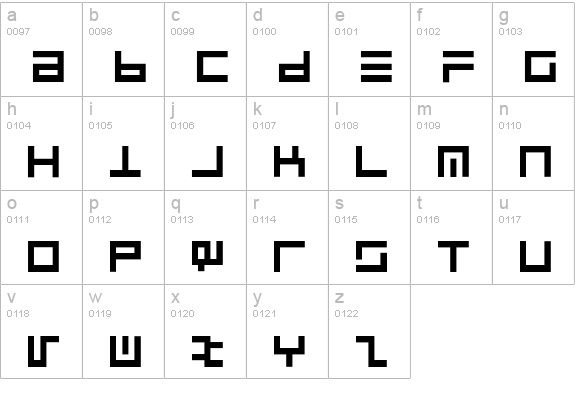
PCLintrulla Font Details
Introducing PCLintrulla font, a versatile and captivating typeface that is perfect for any design project. With its unique blend of contemporary and classic elements, PCLintrulla adds a touch of elegance and sophistication to any text. Featuring clean lines and a balanced structure, this font is easy on the eyes, making it a pleasure to read. Its modern yet timeless design ensures that it stands out from the crowd, making it suitable for a wide range of applications, from branding and advertising to packaging and editorial design. PCLintrulla font offers a wide variety of weights and styles, allowing you to experiment and find the perfect fit for your project. Whether you're looking for a bold and impactful headline or a subtle and refined body text, this font has got you covered. But what sets PCLintrulla font apart from the rest is that it is completely free. Yes, you read that right! This stunning typeface is freely available to download at FontsMarket.com, making it accessible to designers and creatives all around the world. Now you can add a touch of sophistication to your designs without breaking the bank. So why wait? Download PCLintrulla font today and unlock the limitless possibilities it offers. Elevate your designs to new heights and make a lasting impression with this exceptional typeface. Don't miss out on this incredible opportunity to enhance your creative endeavors. Get your hands on PCLintrulla font now, and let your imagination run wild.